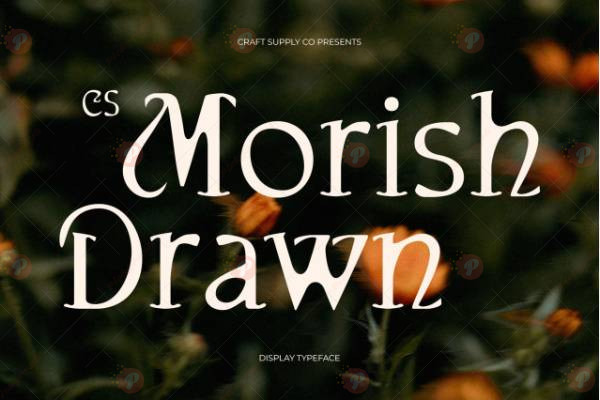
The CS Morish Drawn Font Free is a unique hand-drawn artistic display font designed to bring a creative, handcrafted, and organic look to your projects. With its sketch-style strokes, rough textures, and playful personality, this font is perfect for posters, logos, packaging, book covers, flyers, social media graphics, and creative branding.
If you want to add a handmade and authentic feel to your design work, the CS Morish Drawn Font Free is the perfect choice. It combines artistic charm with bold readability, making it suitable for both digital and print projects.
Typeface: Display / Hand-Drawn
Style: Artistic / Rough / Creative / Organic